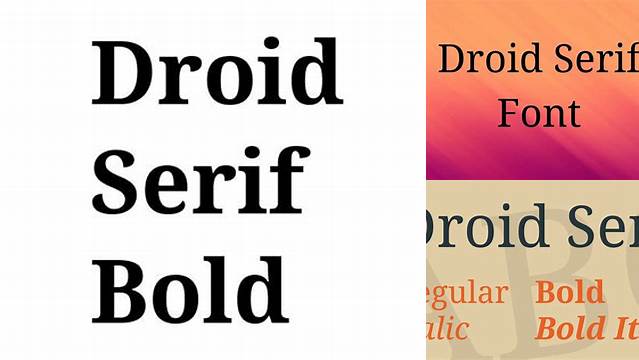
Unveiling the Droid Serif Pro Bold Font: A Typographic Gem
Hey everyone! Let's dive deep into the world of fonts, and today, we're shining a spotlight on a real stunner: the Droid Serif Pro Bold font. If you're on the hunt for a typeface that screams professionalism with a touch of modern elegance, then you've come to the right place, guys. Droid Serif Pro Bold isn't just any font; it's a meticulously crafted piece of digital art that brings clarity, readability, and a distinct personality to any text it graces. It's part of the broader Droid font family, originally designed by Google, which aimed to provide excellent readability across various screen resolutions, a crucial aspect in our increasingly digital world. The 'Pro' in its name signifies an enhanced version, often with more features and refined aesthetics, and the 'Bold' weight is where it truly shines, offering substantial presence without being overwhelming. Imagine crafting a crucial presentation, designing a striking website header, or even laying out a professional report – this font is your secret weapon. It strikes a perfect balance between being robust and refined, making it incredibly versatile for a wide array of applications. We'll be exploring where you can snag this fantastic font for free and how you can best utilize its bold characteristics to elevate your designs. So, buckle up, because understanding the nuances of a font like Droid Serif Pro Bold can seriously level up your design game.
Why Choose Droid Serif Pro Bold for Your Projects?
So, why should you be excited about Droid Serif Pro Bold? Well, let's break it down. First off, readability is king, especially when you're dealing with digital content. This font family was born from the need for clear, legible type on screens, and the Droid Serif Pro Bold certainly lives up to that legacy. Its serifs aren't overly ornate; they're clean and functional, guiding the eye smoothly across lines of text. This makes it incredibly comfortable to read, even for extended periods, which is a huge win for articles, blog posts, or any long-form content. But it's not just about function; it's about form too. The 'Bold' weight provides a strong, confident presence. It's perfect for headlines, subheadings, or any text that needs to grab attention without being shouty. Think of it as a confident whisper rather than a loud yell. It carries weight, impact, and authority, making your key messages stand out effortlessly. Furthermore, the 'Pro' version often implies a higher level of polish and potentially more character sets, offering greater flexibility for designers working with different languages or needing specific typographic symbols. The overall aesthetic is modern yet timeless, avoiding the pitfalls of overly trendy fonts that quickly become dated. It’s a safe yet stylish bet for professionals who want their work to look polished and credible. Whether you're a seasoned designer or just starting out, incorporating Droid Serif Pro Bold can instantly elevate the perceived quality of your work, giving it that professional edge that clients and readers alike will appreciate.
Exploring the Nuances of Droid Serif Pro Bold's Design
Let's get a bit nerdy for a second and talk about what makes the Droid Serif Pro Bold font so special from a design perspective. The beauty of this font lies in its careful construction. Developed with screen readability in mind, it features open counters (the enclosed or partially enclosed negative space in a letter) and distinct letterforms. This ensures that even at smaller sizes or lower resolutions, individual characters remain clear and unambiguous. The serifs themselves are quite refined – not too sharp, not too blunt – providing a subtle anchor to each character that enhances readability without adding visual clutter. When you move to the Bold weight, these characteristics are amplified. The strokes gain significant thickness, giving the font a robust and authoritative feel. Yet, the designers have managed to maintain a sense of clarity and balance. The letterforms don't bleed into each other, and the serifs still do their job of guiding the eye effectively. This is crucial for bold fonts, as they can often become heavy and difficult to read if not expertly designed. The Droid Serif Pro Bold is a testament to good typographic principles, ensuring that even at its most impactful, it remains a pleasure to read. It’s this thoughtful balance between strength and legibility that makes it a go-to choice for designers looking to make a statement while ensuring their message is clearly communicated. It’s a font that feels both grounded and sophisticated, making it suitable for a wide range of branding and editorial projects. The attention to detail in each character truly sets it apart, offering a superior typographic experience.
Mastering Droid Serif Pro Bold: Tips for Effective Use
Now that you've got the Droid Serif Pro Bold font downloaded and installed, let's talk about how to use it like a pro, guys. This isn't just about slapping it onto a design; it's about using its unique characteristics to your advantage. The bold weight is inherently attention-grabbing, so it's perfect for headlines, titles, and subheadings. Use it to create a strong visual hierarchy, guiding the reader's eye through your content. For instance, a Droid Serif Pro Bold headline paired with a lighter weight of Droid Serif (or another highly readable sans-serif) for body text creates a beautiful contrast and ensures legibility. Don't be afraid to use it for call-to-action buttons or important snippets of text that you want to emphasize. However, remember that it's a bold font. Overusing it for large blocks of text can lead to reader fatigue. It's best reserved for where you need impact. Think about the context, too. Droid Serif Pro Bold has a slightly classic yet modern feel, making it suitable for corporate branding, editorial design, book covers, and even certain types of advertising where you want to convey reliability and sophistication. Pairing is key. Experiment with combining Droid Serif Pro Bold with contrasting fonts. A clean sans-serif font for body copy can provide a nice balance, or perhaps a more decorative font for a specific, limited use. Ensure the spacing (kerning and leading) is adjusted appropriately, especially for headlines, to maintain optimal readability and aesthetic appeal. Remember, even the best font needs proper typesetting to truly shine. Play around with it, see what works for your specific project, and don't be afraid to push the boundaries a little while respecting its inherent strengths.
Droid Serif Pro Bold vs. Other Serif Fonts: A Comparative Look
Let's pit Droid Serif Pro Bold against some of its typographic cousins to see where it stands. When comparing serif fonts, you're generally looking at factors like stroke contrast, serif style (bracketed or unbracketed, old-style or modern), x-height, and overall mood. Droid Serif Pro Bold, as we've noted, is optimized for screens. This often means it has a slightly larger x-height (the height of lowercase letters like 'x') and open counters, prioritizing clarity over extreme stylistic flair. Compared to a classic like Times New Roman, Droid Serif Pro Bold feels more contemporary and less formal. Times New Roman, with its higher stroke contrast and more traditional serifs, can sometimes feel a bit dated or overly academic for modern web design. Then you have fonts like Georgia, which also aimed for screen readability but has a distinct, somewhat more robust personality. Droid Serif Pro Bold is arguably more restrained and neutral in its boldness. If you consider something like Garamond, you're entering a realm of delicate beauty and historical elegance; Garamond is much more suited for print and high-end editorial work where its fine details can be appreciated. Droid Serif Pro Bold, especially in its bold weight, offers a sturdier, more grounded presence. It lacks the delicate flourishes of Garamond or the high contrast of some modern serifs. Its strength lies in its clean lines, excellent readability across devices, and its ability to convey confidence and professionalism without being stuffy. It’s the reliable workhorse of the serif font world, designed for the demands of the digital age. While other serifs might excel in specific niches of print or historical replication, Droid Serif Pro Bold carves out its own space as a versatile, modern, and highly functional serif choice, particularly when you need that strong, bold impact.